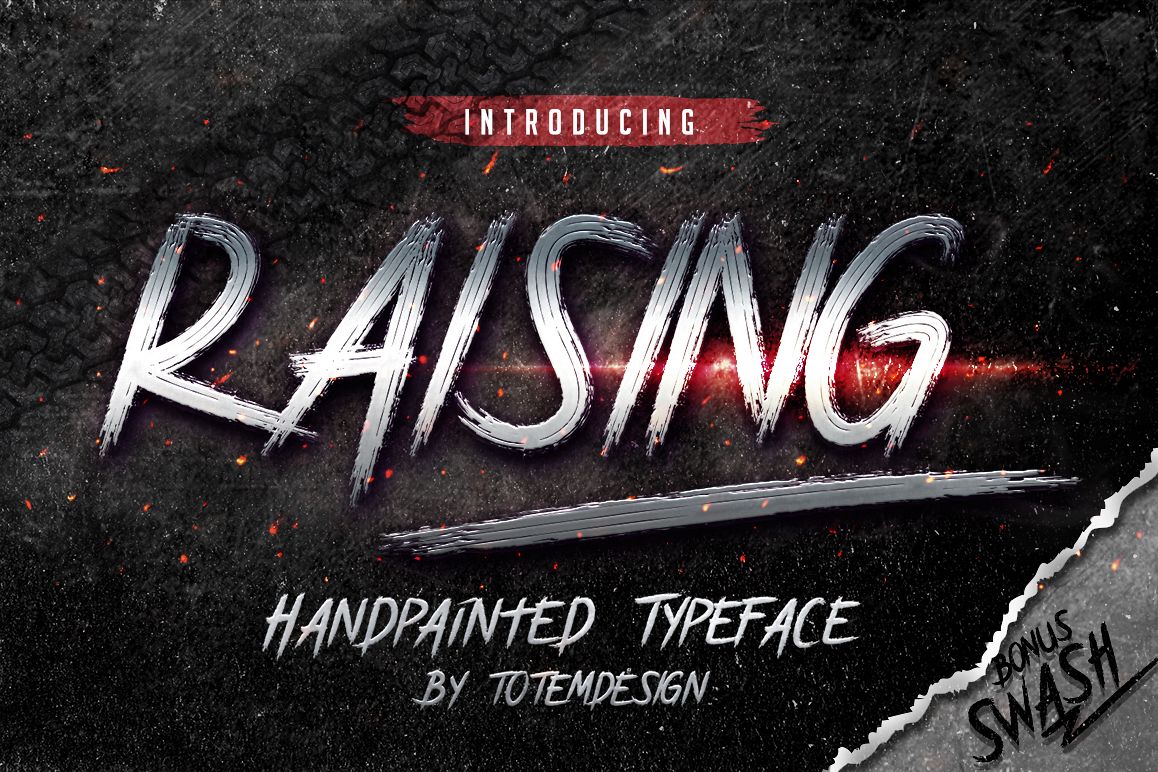
RAISING FONT
Raising Italic
Raising
Raising Handpainted Typeface was inspired from ink & tints manual hand drawn brush to make a natural messy, rough, strong, grunge for any designs requirements. Available in 2 weights Regular and Italic. Could help to good display, uses for labeling, clothing, movie sceen, film title, gigs, band logo, book cover, or cover album, etc.When Purchasing this items you will receive all off the following formats :
RAISING FONT
By Totem Design Studio